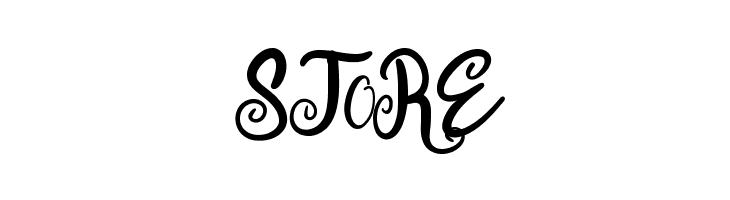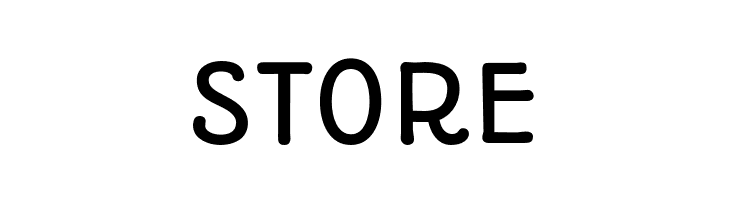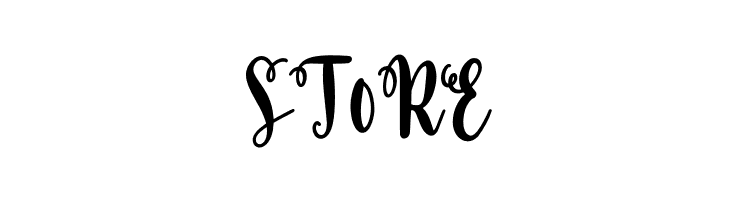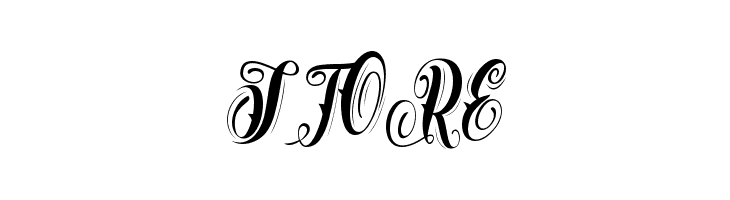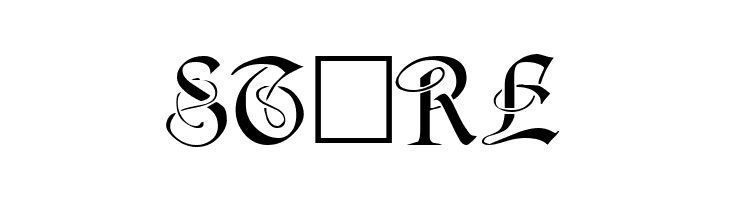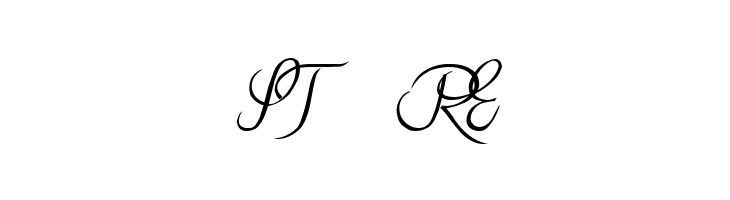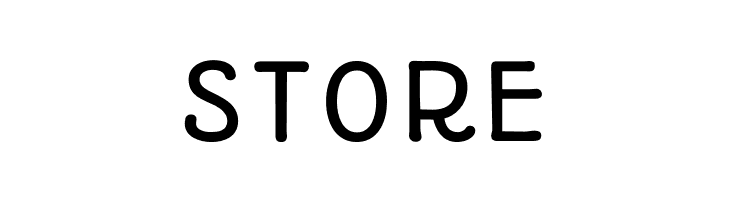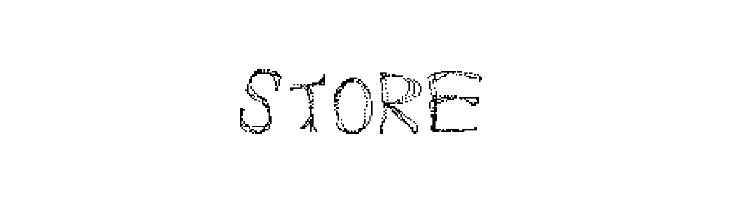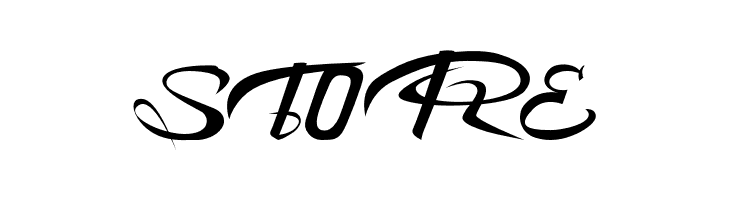
A playful, rounded font with smooth curves and a friendly appearance.
A playful, textured font with a hand-drawn, sketch-like style.
A modern, elegant script font with flowing strokes and bold numerals.
A dynamic and elegant script font with bold lowercase letters and flowing uppercase characters.
A decorative script font with elegant swirls and flourishes.
A playful and whimsical script font with decorative swirls and interconnected letters.
A playful and whimsical script font with decorative flourishes.